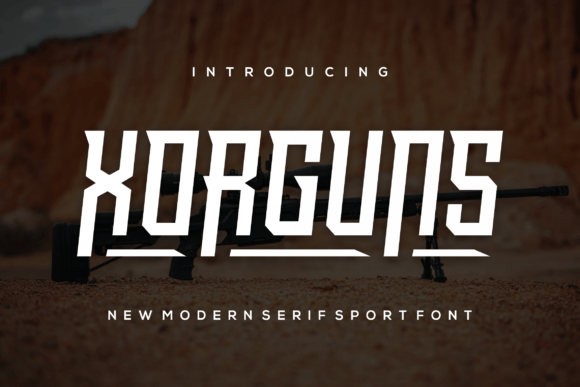
Indulge in the allure of Xorguns Font, an exceptional slab serif font that radiates boldness and authenticity. Designed with meticulous care by the talented kalingga.albert, Xorguns is the ultimate choice for designers seeking distinctive branding solutions, eye-catching logos, and captivating t-shirt designs. Immerse yourself in a world of creativity as you witness your designs transformed with Xorguns, the font poised to elevate your visual identity.
Journey into a realm where creativity meets impact. Xorguns Font empowers you to craft logos that resonate with strength and leave a lasting impression. Its bold and assertive strokes command attention, ensuring your designs stand out amidst a sea of mediocrity. Unleash your imagination and create logos that embody power, making an indelible mark on the minds of your audience.
As a font meticulously designed for modern logos, Xorguns Font transcends boundaries, seamlessly adapting to the ever-evolving world of esports. Its striking presence lends itself perfectly to the dynamic and competitive nature of esports, creating designs that exude energy and determination. Whether you're designing team logos, tournament posters, or streaming overlays, Xorguns Font will elevate your visual arsenal, propelling you to victory.
Xorguns Font's versatility extends far beyond logos and esports, embracing a diverse range of creative projects. Its bold and captivating style adds an instant touch of authenticity to t-shirt designs, grabbing attention and making a statement. Unleash your inner artist and let your designs speak volumes. Xorguns Font is the ultimate tool for creating t-shirts that tell stories, spark conversations, and leave a lasting impression.
With Xorguns Font at your disposal, prepare to embark on a creative journey like no other. Its captivating presence transforms ordinary designs into extraordinary works of art. Elevate your logos to new heights of boldness, conquer the world of esports with striking visuals, and leave an unforgettable mark with t-shirt designs that speak to the soul. Xorguns Font is the key to unlocking your creative potential, a font that will inspire and empower you to reach new creative horizons. Explore the boundless possibilities that await and witness the transformation of your designs into mesmerizing masterpieces.